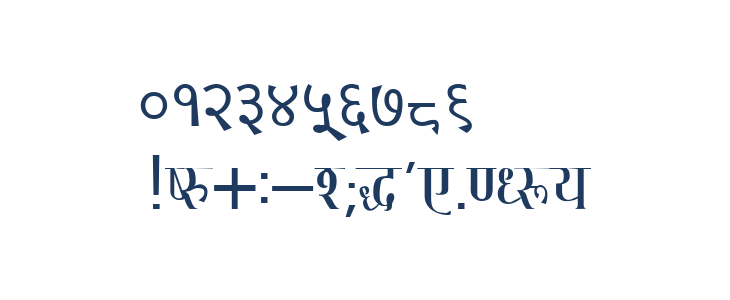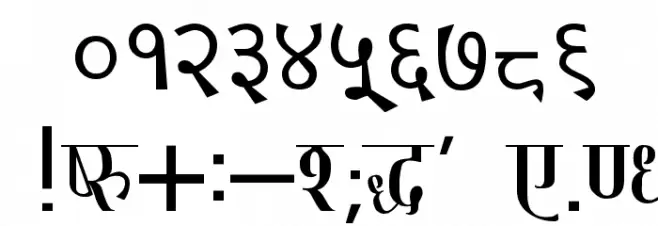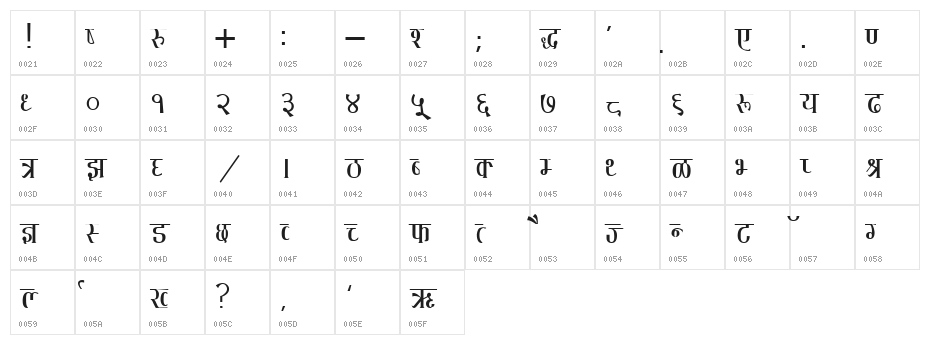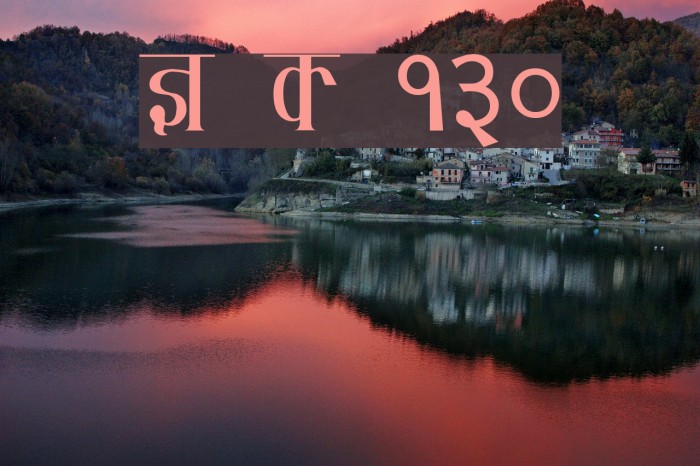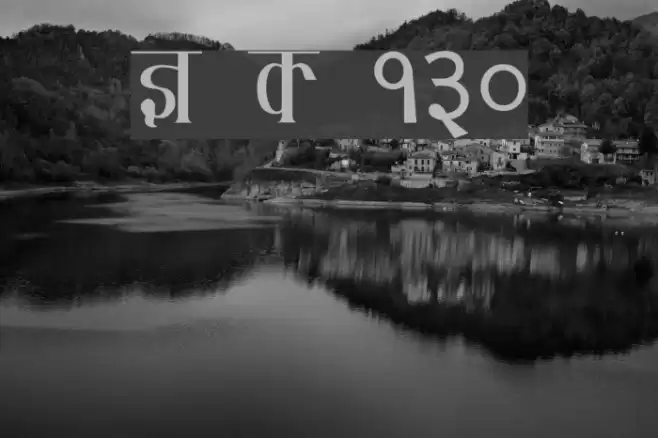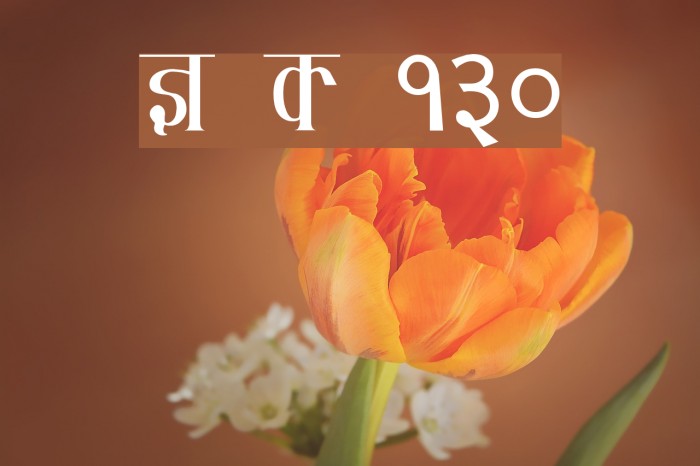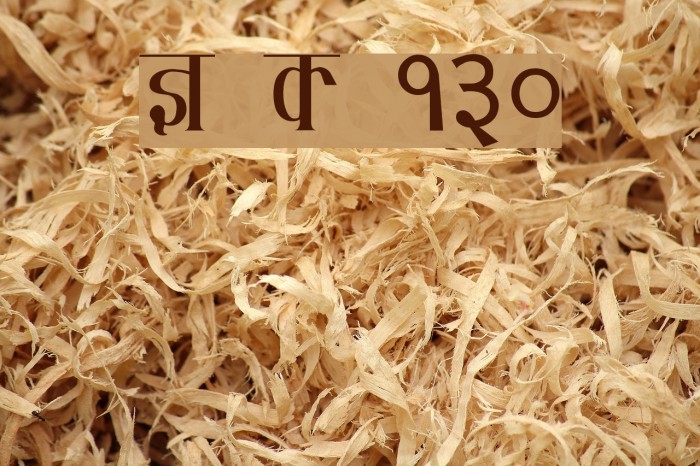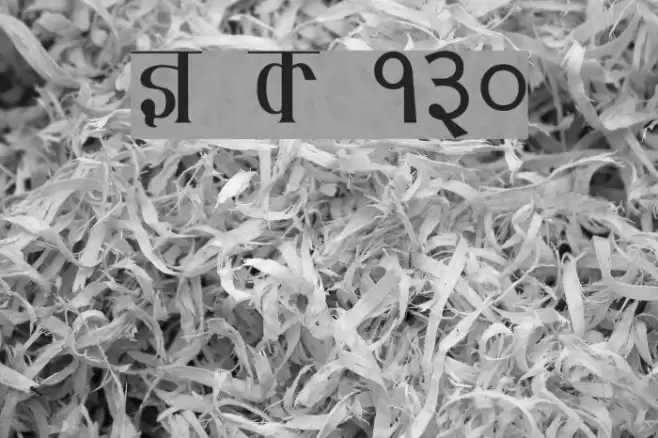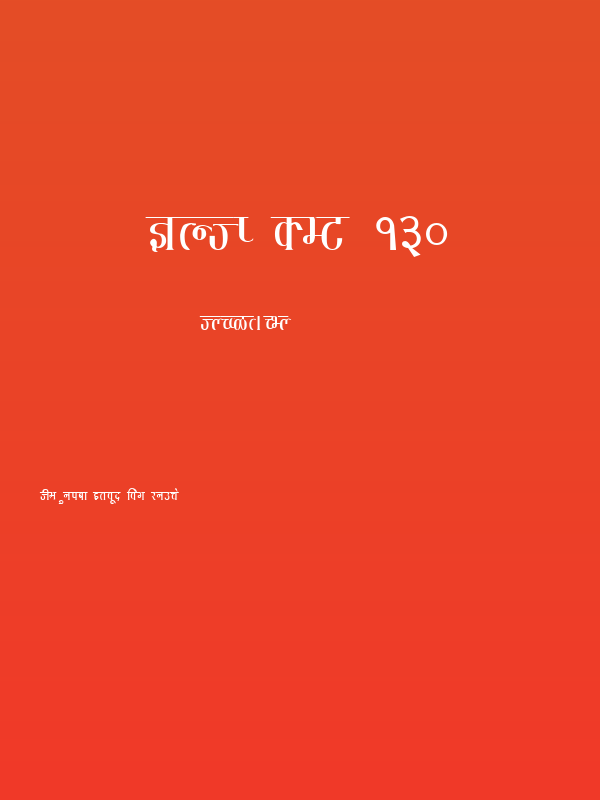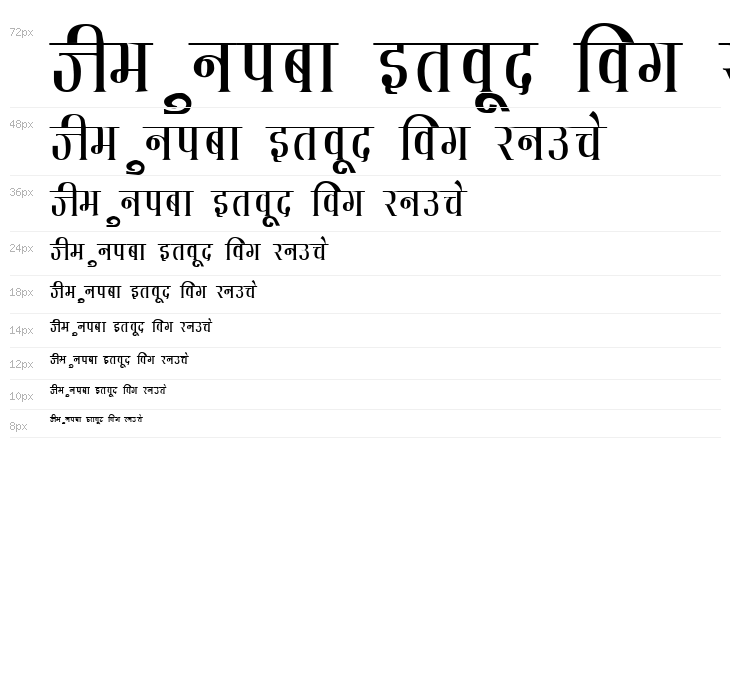
Kruti Dev 130 Font
Kruti Dev 130 Description
This font features a distinctive and traditional Devanagari script style, characterized by its bold and prominent strokes. The characters exhibit a classic and formal appearance, with a balanced mix of curves and straight lines. The script maintains a consistent baseline with moderate spacing, ensuring readability while preserving the intricate details of each glyph. The numerals are clear and well-defined, complementing the overall aesthetic. Special characters are integrated seamlessly, maintaining the font's cohesive look. This font is suitable for conveying a sense of tradition and cultural richness.
Overall StyleTraditional
Use CaseHeadlines, Logos, Cultural texts
Proposed ProjectsIdeal for cultural publications, educational materials, traditional event invitations, and signage.